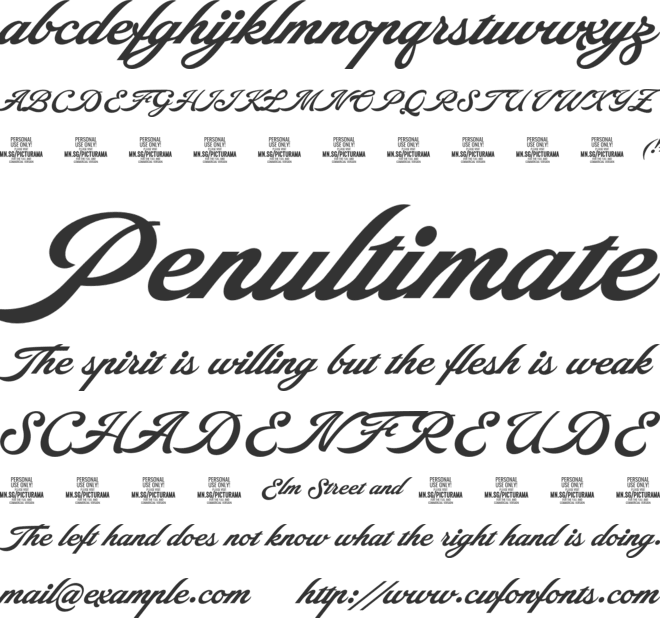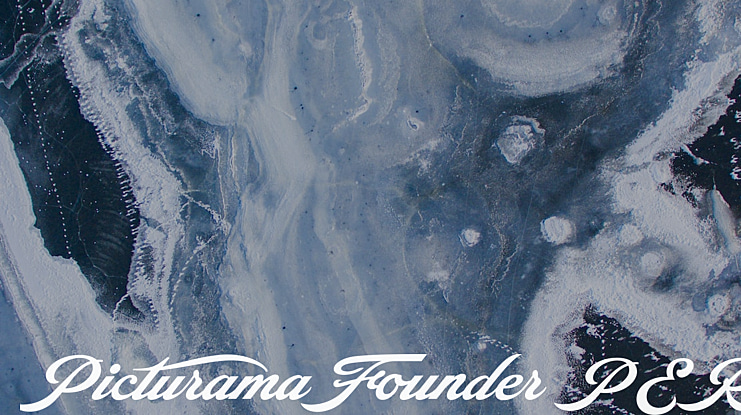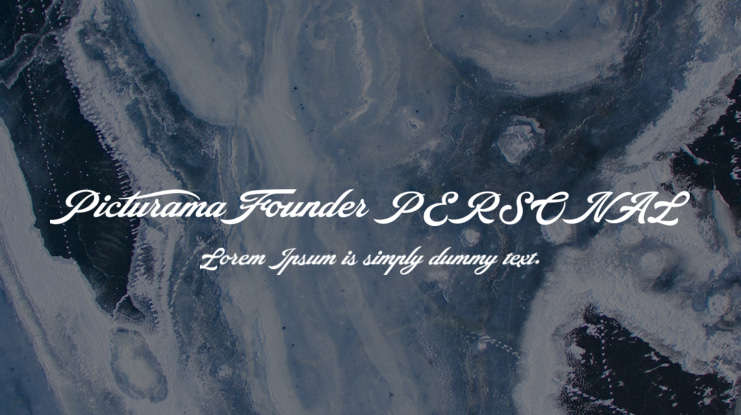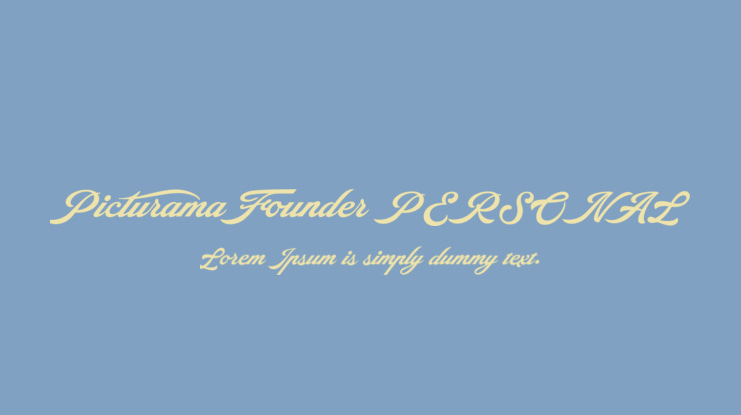
Picturama Founder PERSONAL Font
Picturama Founder is a stunning script font that effortlessly combines traditional elegance with contemporary innovation.
Every curve and connection in this formal calligraphy type exudes finesse, evoking the charm of vintage labels and classic vinyl covers.